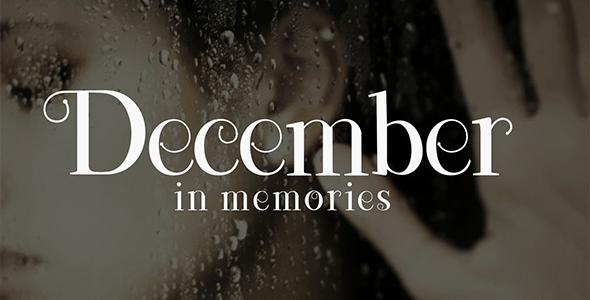
Lefina Typeface (Duo Font)
Lefina typeface is a display serif font in modern style and romantic scratch. Lefina typeface available in 2 different styles. Includes: - lefina (.ttf & .otf) - lefina duo (.ttf & .otf) Features: - Open Type features - Special Lingature - .ttf and .otf format - Punctuation special glyphs, numbers and symbols Thank you for checking and i hope you enjoy it. Always put your heart into it and don’t worry to try. I hope you have as much fun using it as i did making it Regard Khurasan .......................... mail support: